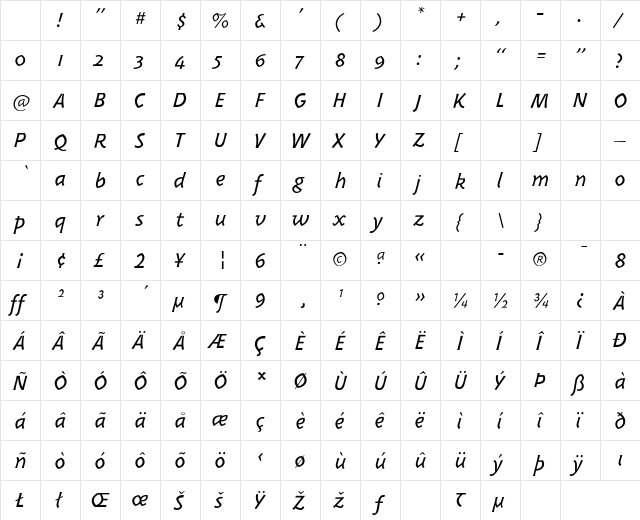
Complete PannikinSSK Italic glyph index. Displaying only characters natively supported by PannikinSSK Italic font.
PannikinSSK is a composed and adaptable typeface that performs quietly and consistently across a wide range of design contexts. The slanted form adds forward momentum and visual energy.